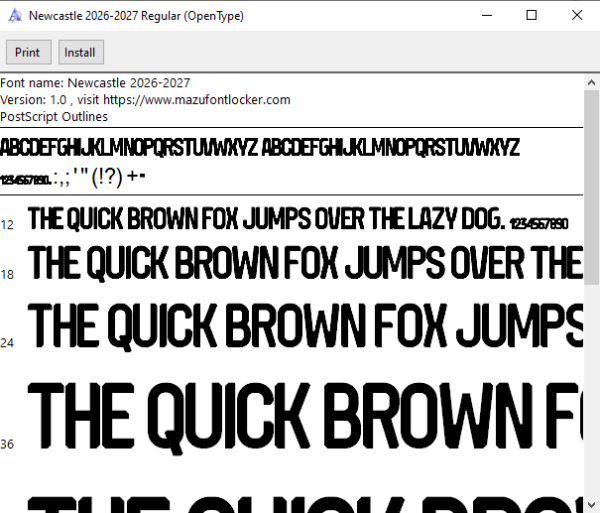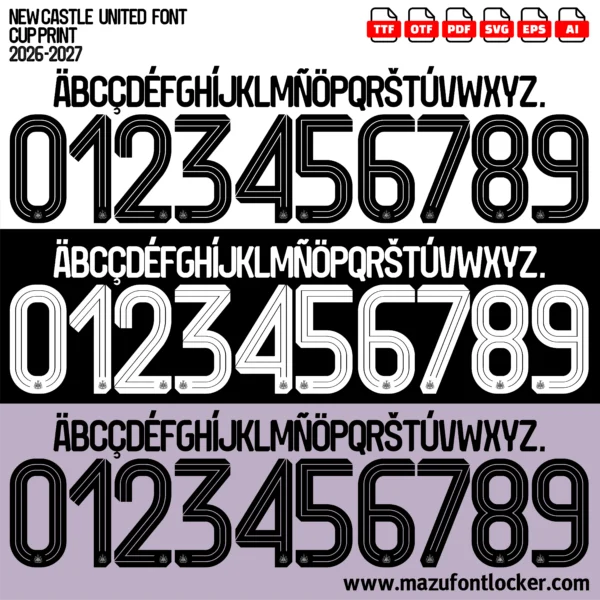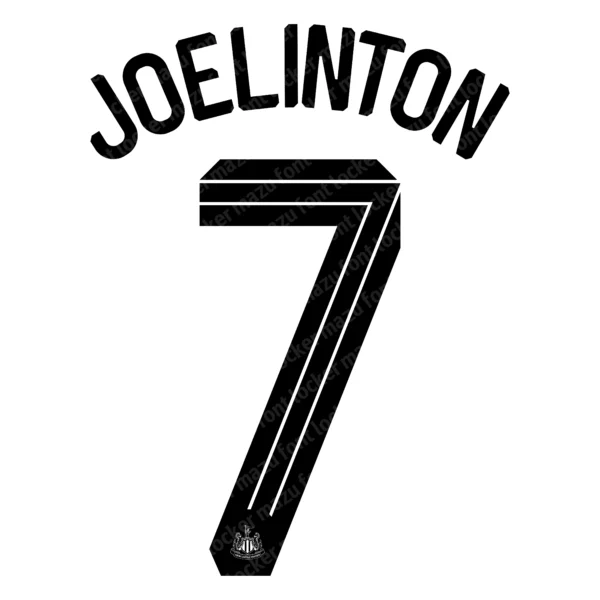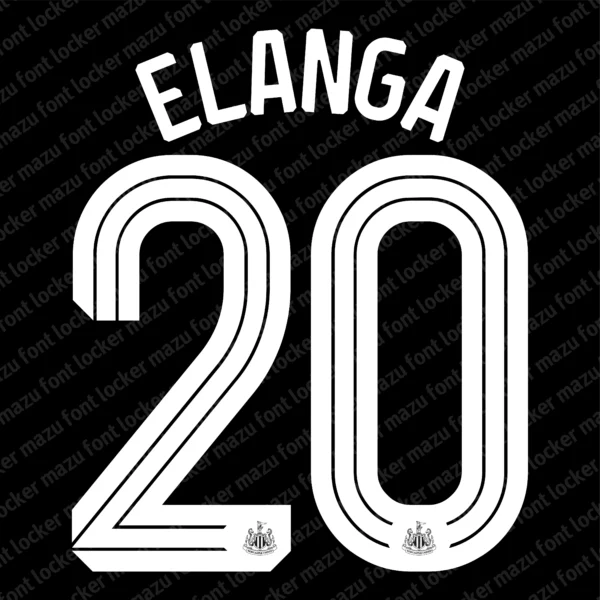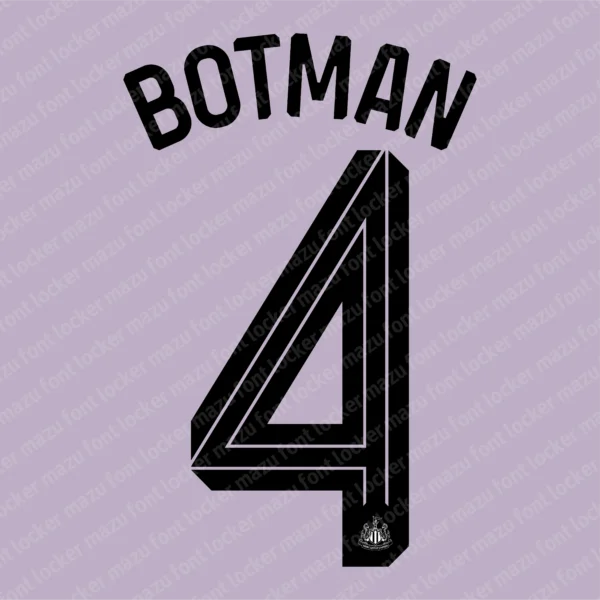
Newcastle United 2026-2027 Font Vector – Stunning St James’ Park Classic Masterpiece
This font captures the bold, fearless, electric, and ultra-premium lettering that perfectly embodies Newcastle United’s iconic English grit fused with the ruthless, passionate, and unstoppable spirit of The Magpies — delivering unmatched intensity, raw emotion, elite craftsmanship, and pure Black-White fire for premium jersey mockups, epic football designs, spectacular sports visuals, standout fan creations, and professional branding projects.
Newcastle United 2026-2027 Font Vector – Authentic Magpies Typeface
The Newcastle United 2026-2027 Font Vector is a premium typeface that accurately recreates the official match lettering worn by Newcastle United during their projected dominant 2026-2027 season. This high-quality vector font kit captures the bold, sharp, and distinctive typography that reflects the pride, fighting spirit, and rich football heritage of the Magpies.
Designed for professional designers and passionate Newcastle United supporters, the Newcastle United 2026-2027 Font Vector delivers perfect authenticity for creating realistic jersey mockups, fan merchandise, matchday posters, social media graphics, and classic football content. It pairs beautifully with Newcastle United’s legendary black and white kits featuring the iconic club crest.
Why Choose Newcastle United 2026-2027 Font Vector
This font stands out because of its sharp vector precision and strong club identity. Every letter and number is crafted to match the exact style used on the players’ shirts during the anticipated 2026-2027 campaign. Whether you are creating professional kit templates or celebrating Newcastle United’s golden era, the Newcastle United 2026-2027 Font Vector delivers an authentic match-ready appearance.
The letterforms in the Newcastle United 2026-2027 Font Vector are bold, clean, and highly readable. The characters feature balanced proportions and sharp detailing that create a professional appearance on both home and away jerseys while maintaining the classic yet modern football aesthetic of the 2026-2027 era.
The numerals feature strong geometric construction with excellent visibility and balance. Every number is carefully vectorized to ensure flawless scaling across digital graphics, print projects, and jersey applications.
• Full uppercase A–Z and numbers 0–9 in authentic Newcastle United 2026-2027 style
• Includes authentic styling inspired by official 2026-2027 season match shirts
The Newcastle United 2026-2027 Font Vector is an independently designed typeface package. It is carefully crafted to replicate the official shirt lettering style used during the 2026-2027 season. This font kit is ideal for football-themed creative projects, fan artwork, jersey concepts, and professional sports graphics.